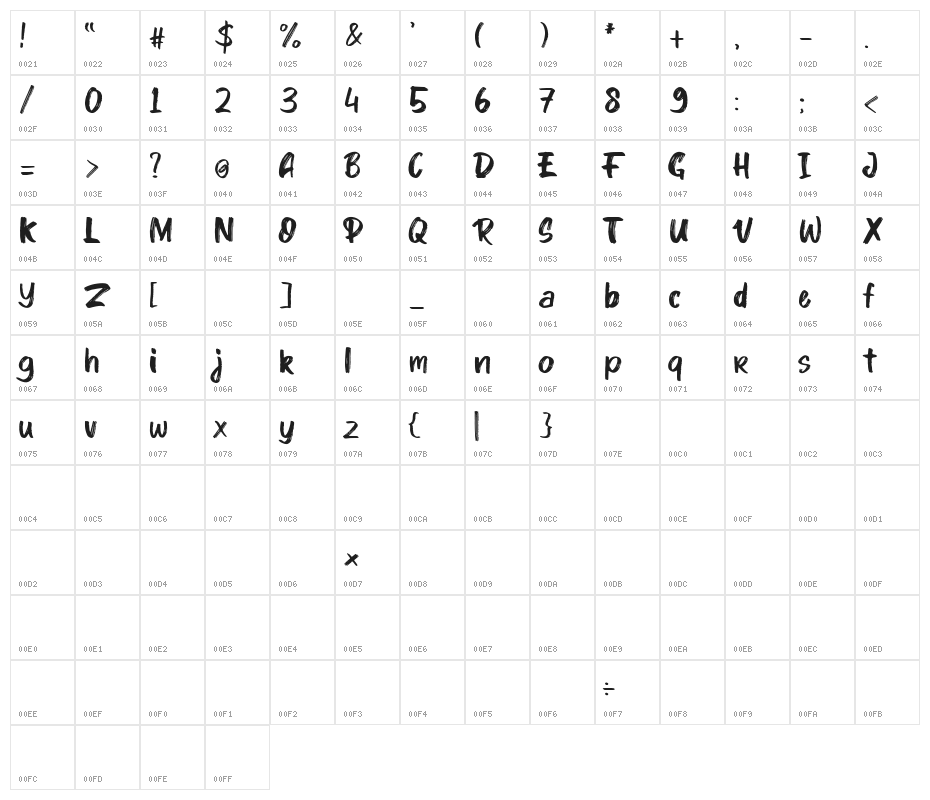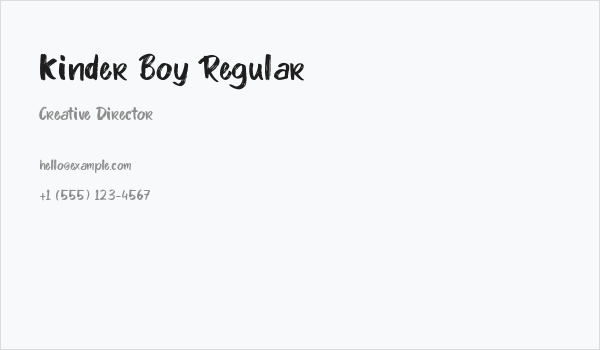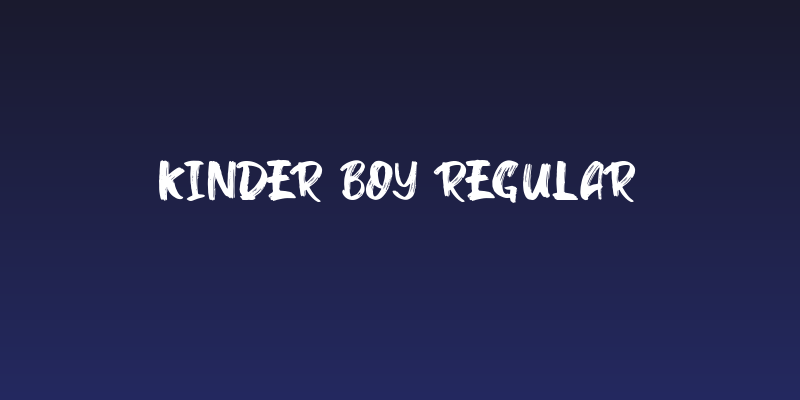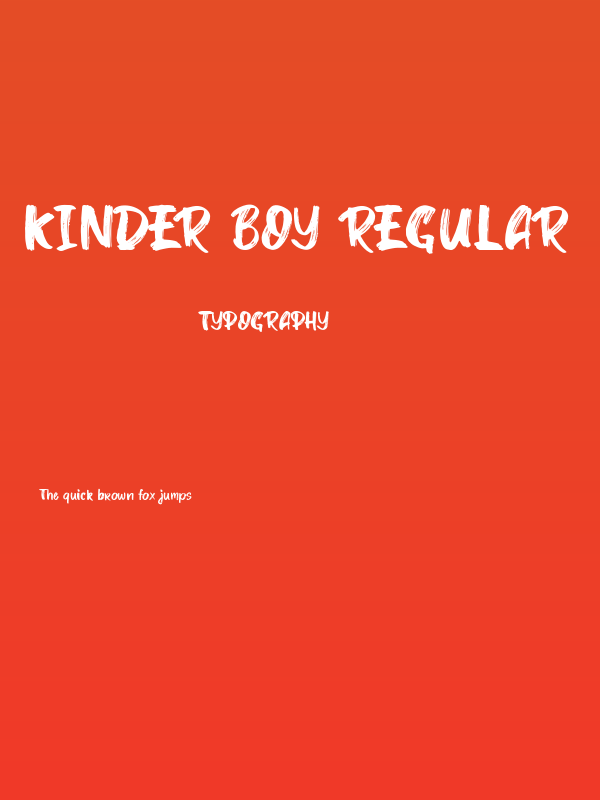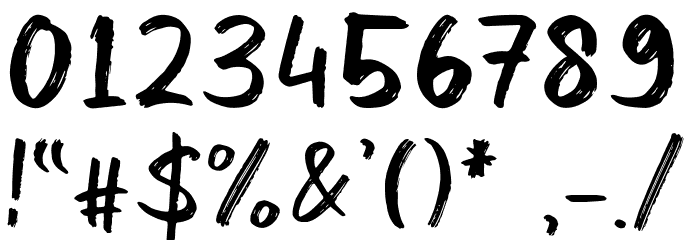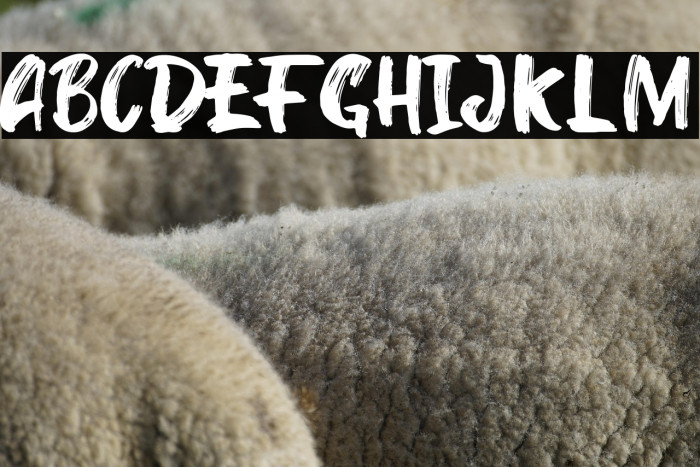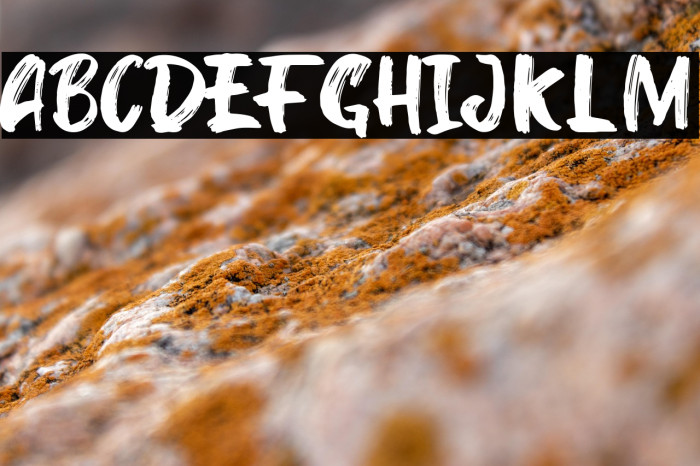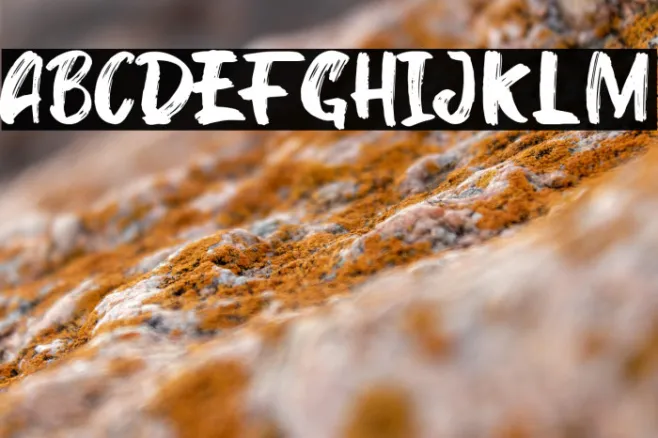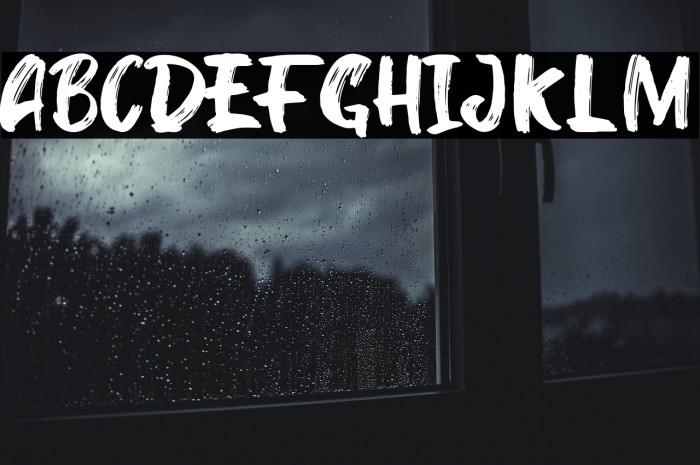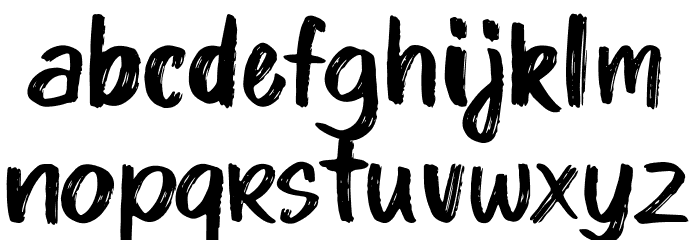
Kinder Boy Regular Font
Kinder Boy Regular Description
This font features a bold, brush-like style that exudes a sense of energy and dynamism. The strokes are uneven, giving it a hand-painted appearance, which adds a personal and artistic touch. The uppercase and lowercase letters maintain a consistent style, with a playful and slightly chaotic feel. The numbers and special characters follow the same aesthetic, ensuring a cohesive look across all elements. This font is ideal for projects that require a bold statement or a creative flair.
| Overall Style | Modern, Artistic |
| Proposed Projects | Perfect for posters, branding, artistic projects, and any design needing a bold, creative touch. |